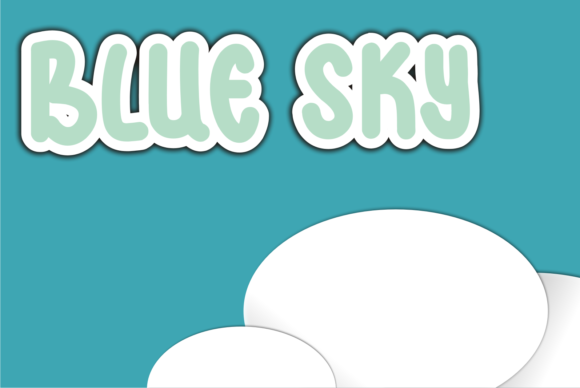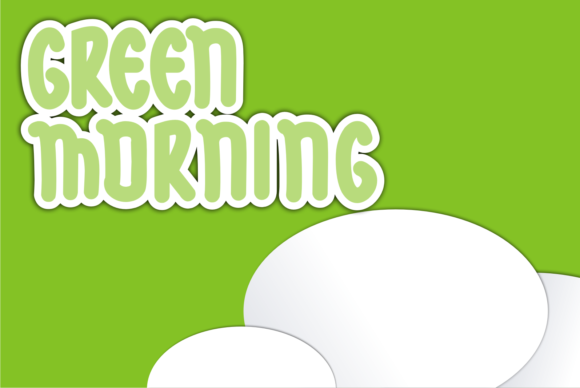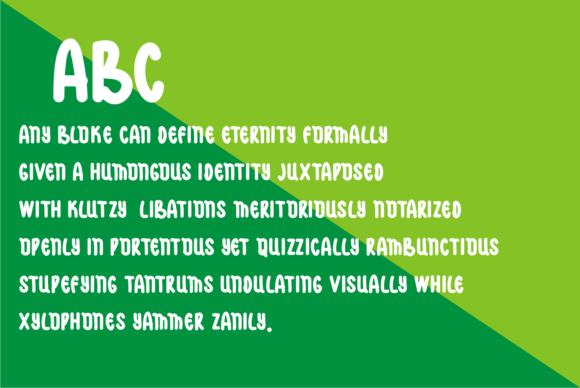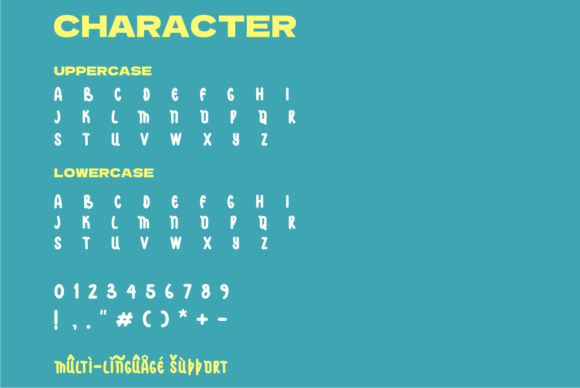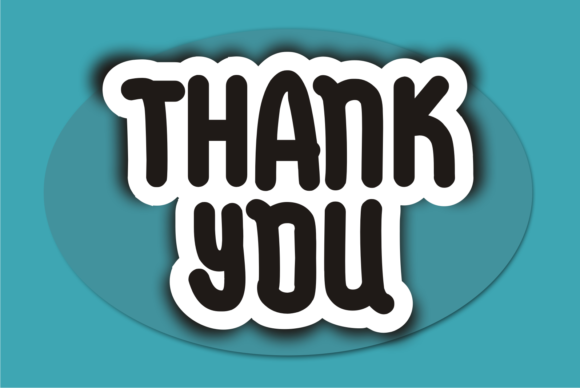
Introduction to Kharnita Nature Font
Kharnita Nature is a cool and trendy-looking display font that is great for logos, badges, clothing, posters, and other projects that need to stand out from the crowd.
Add this font to your favorite creative ideas, and notice how it makes them come alive .
Key Features of Kharnita Nature Font
Why Choose Kharnita Nature Font?
Kharnita Nature Font offers exceptional quality and versatility, making it a valuable addition to your design toolkit. Whether you’re creating for personal projects or commercial use, Kharnita Nature Font delivers professional results.